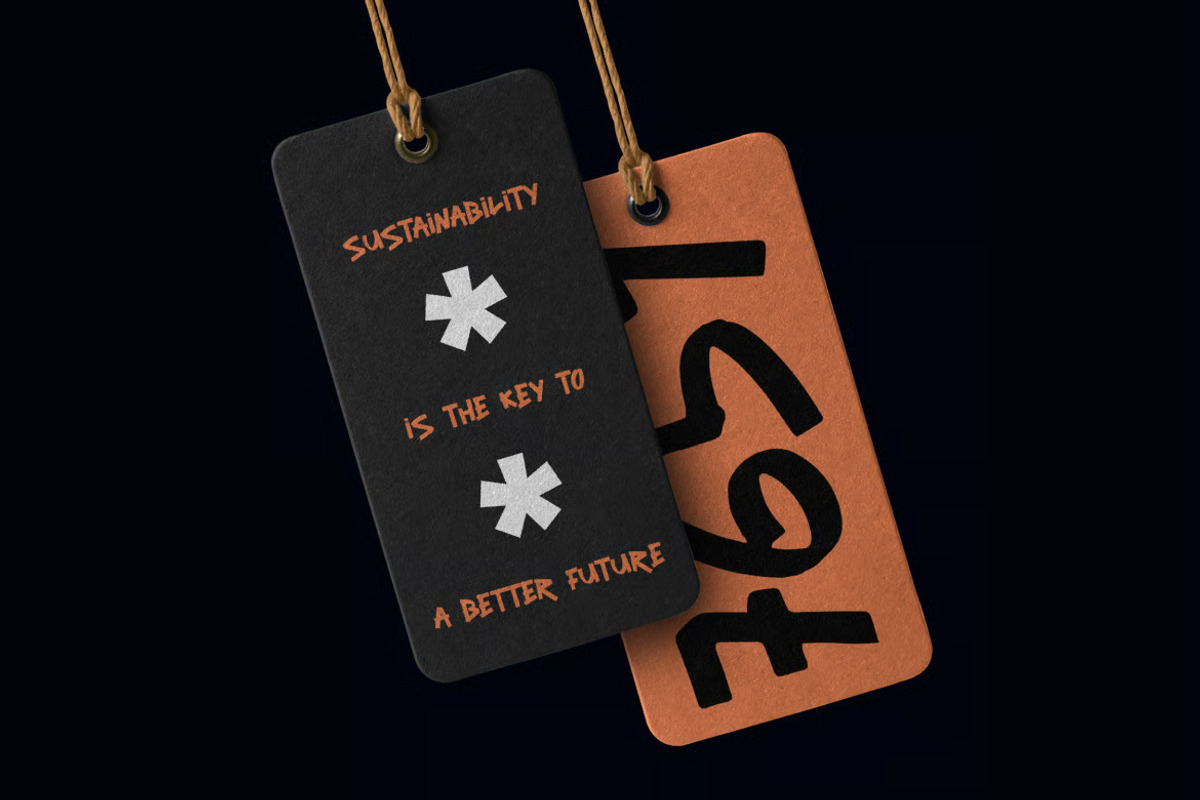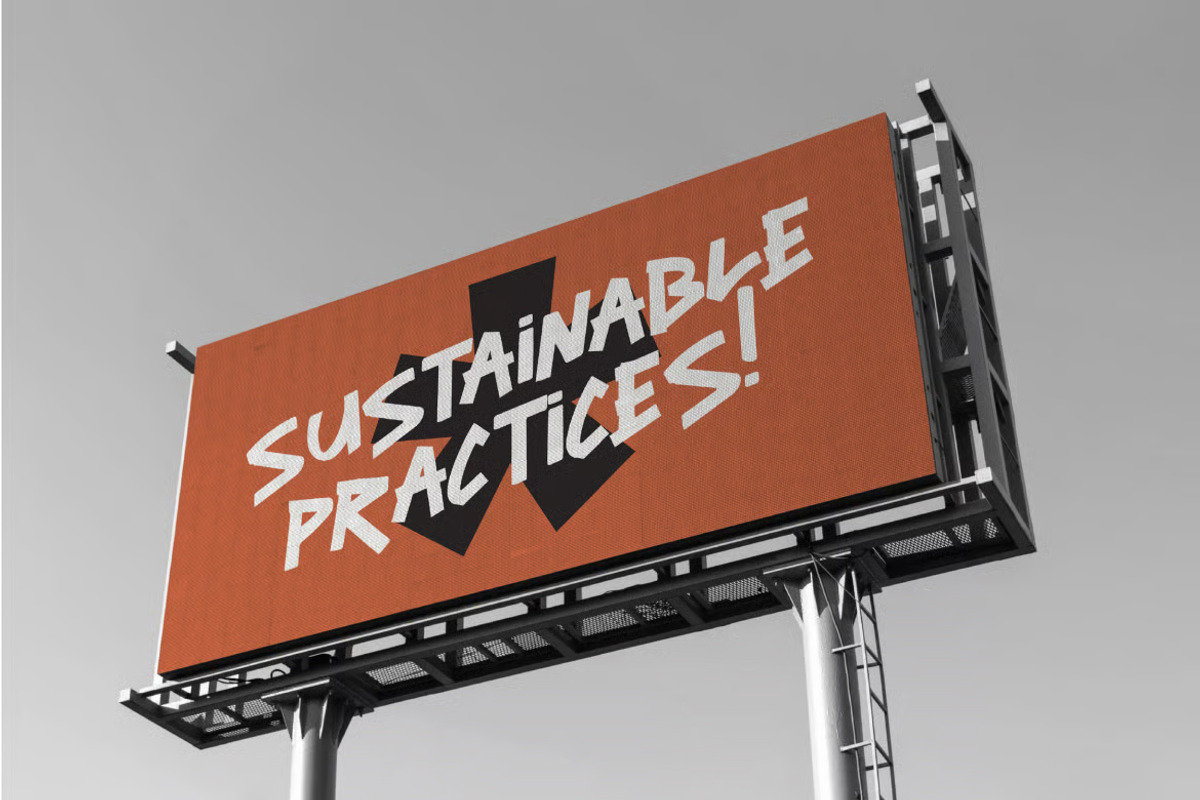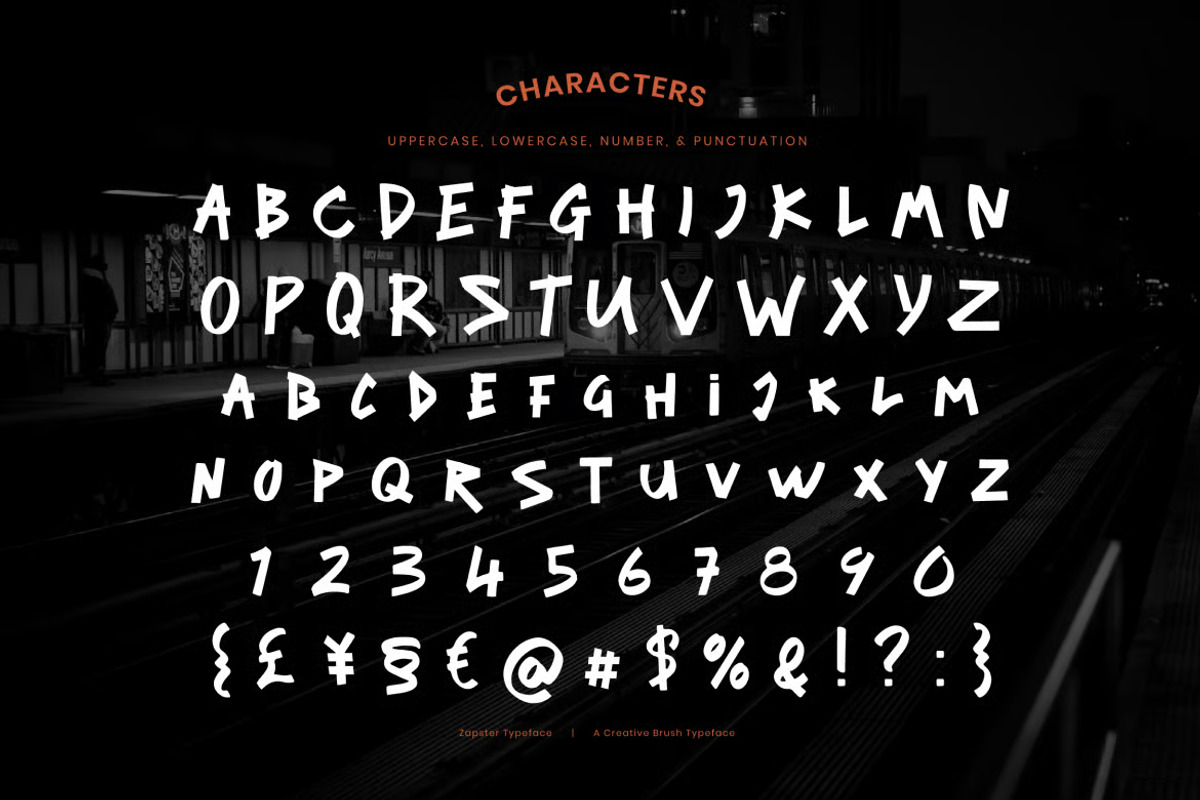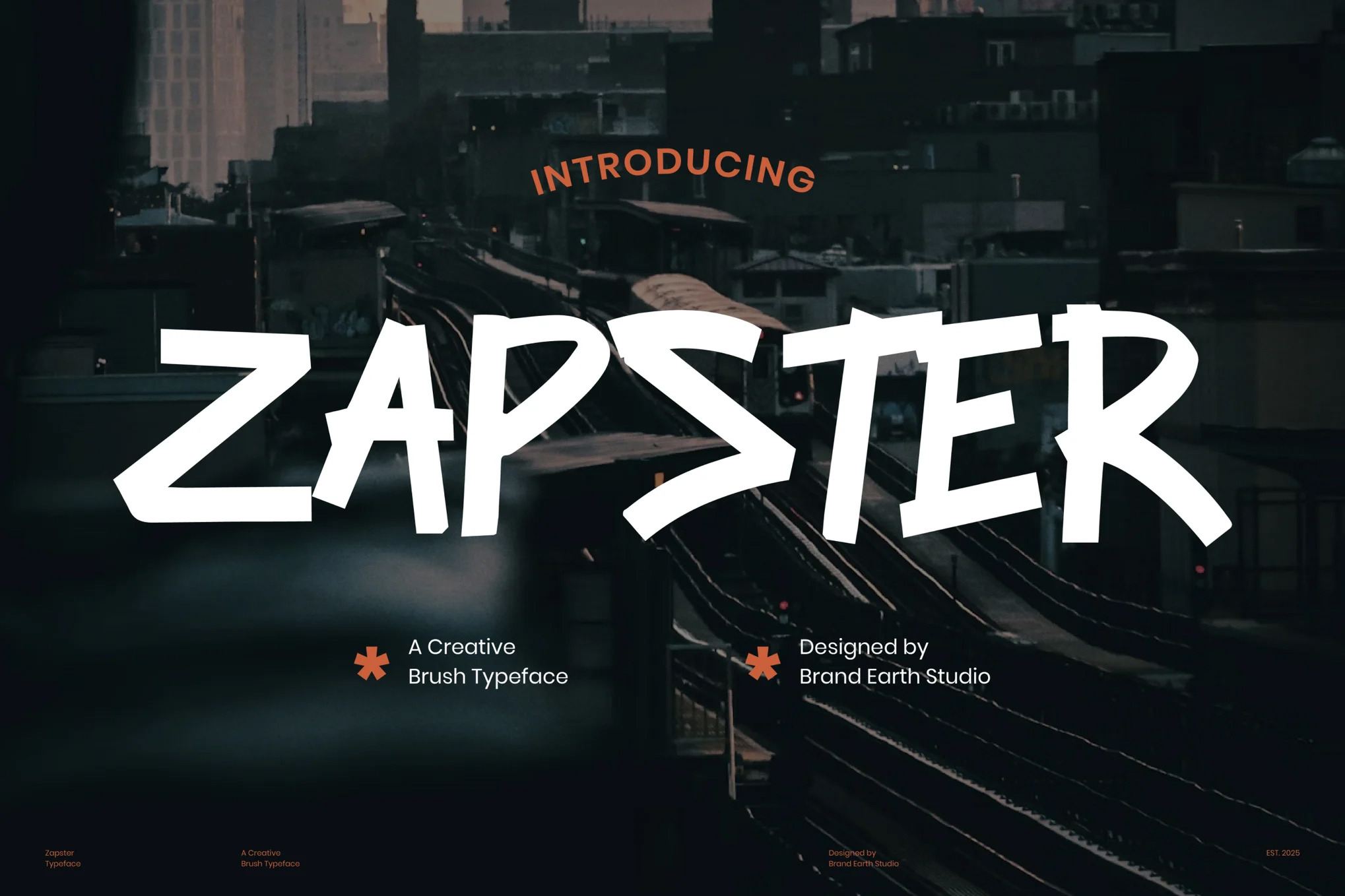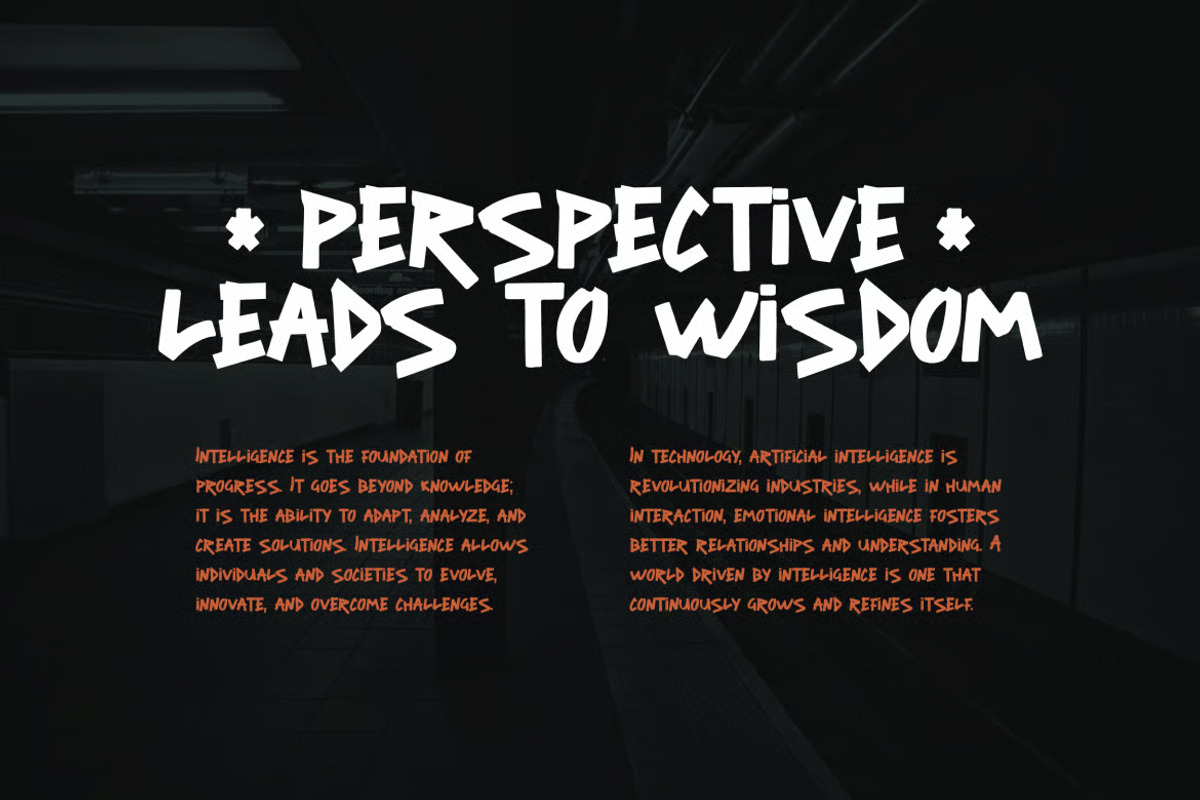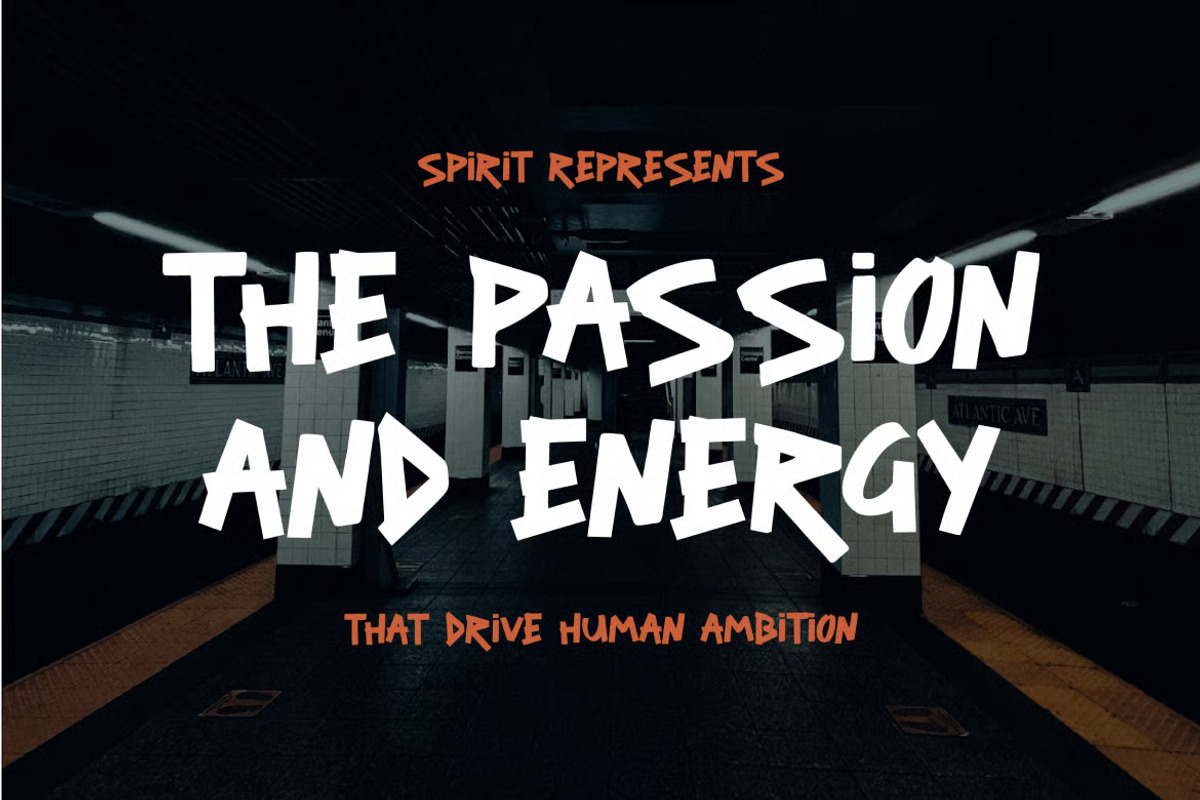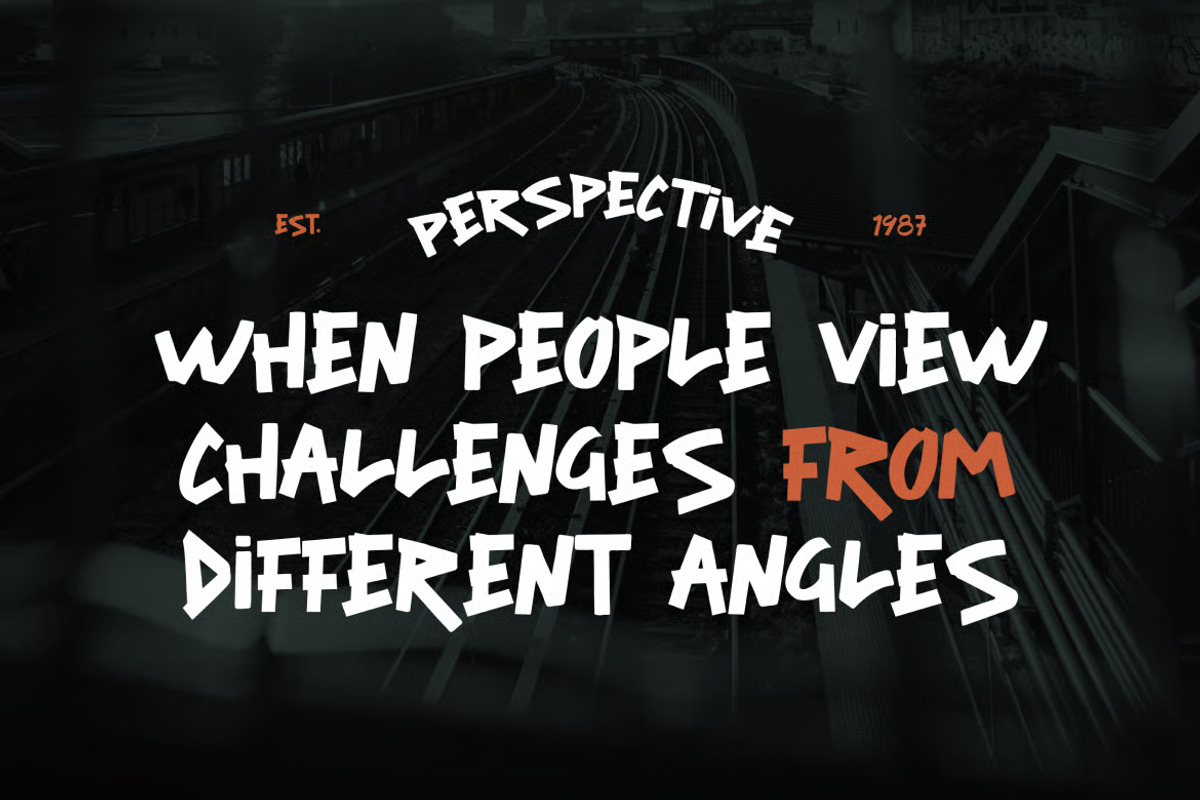
Zapster - Bold Urban Brush Font
Zapster is a high-energy brush typeface that exudes raw street style and urban dynamism. Designed to capture the essence of edgy creativity and rebellious spirit, it radiates bold confidence and movement. Its presence is sharp, dynamic, and street-inspired—perfect for those looking to elevate their brand with a raw yet striking visual identity.
The letterforms in Zapster are carefully crafted with sharp angles, bold strokes, and a graffiti-inspired rhythm that gives the typeface a raw and unconventional appearance. It features a brush-driven energy that is perfect for branding, posters, apparel, music covers, and streetwear graphics.
With its bold strokes and urban character, Zapster bridges the gap between raw street culture and modern design. It provides a touch of rebellion while remaining eye-catching and versatile, making it ideal for headlines, streetwear labels, music branding, and edgy campaign designs.
Numeral & Punctuations